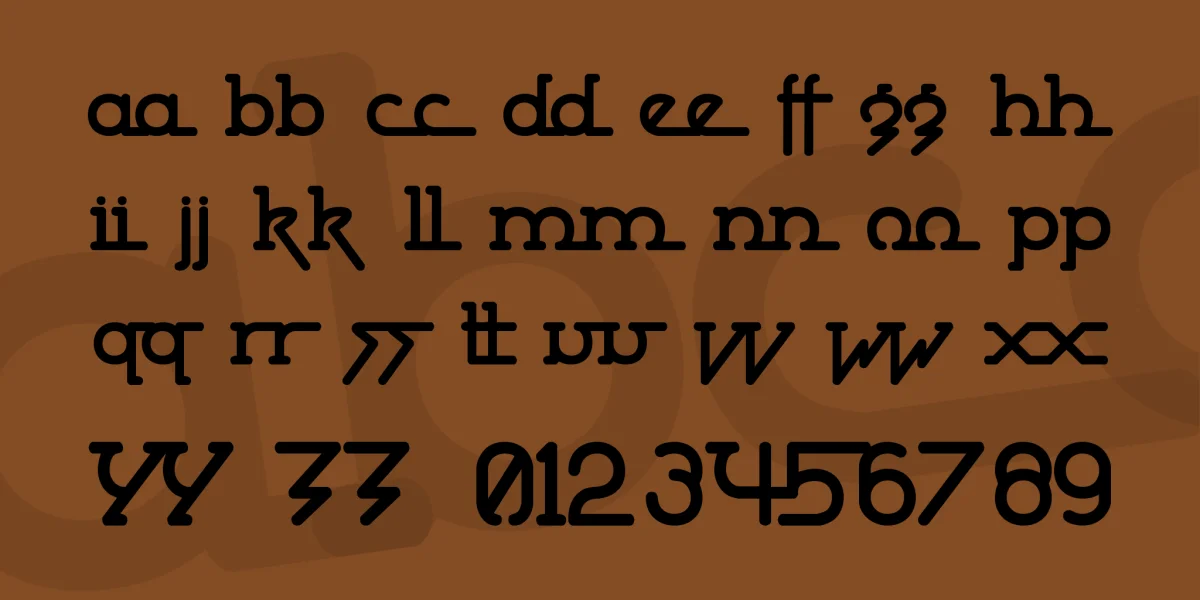
--This Font is baised off of the type used on Midnight Oils first album (made in 1978). It's named after the first track. There are a few differences in some of the characters, but most of them are how they appear on the album.